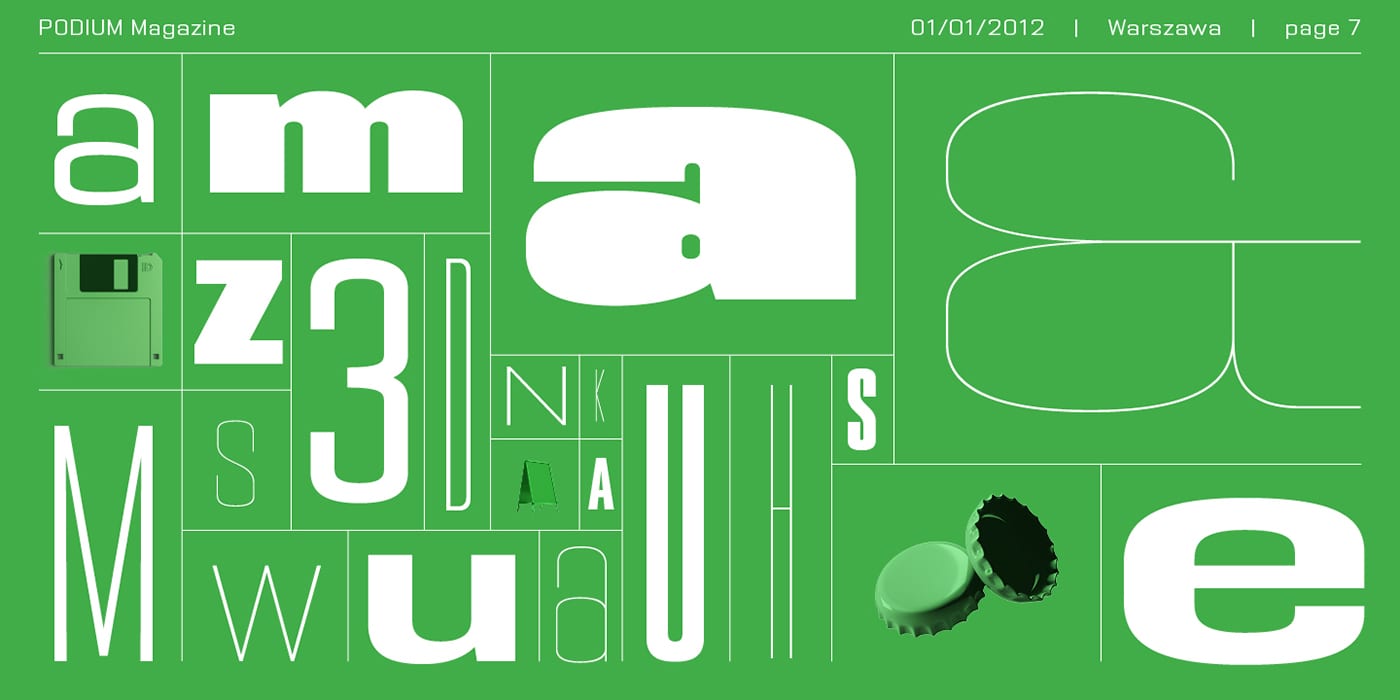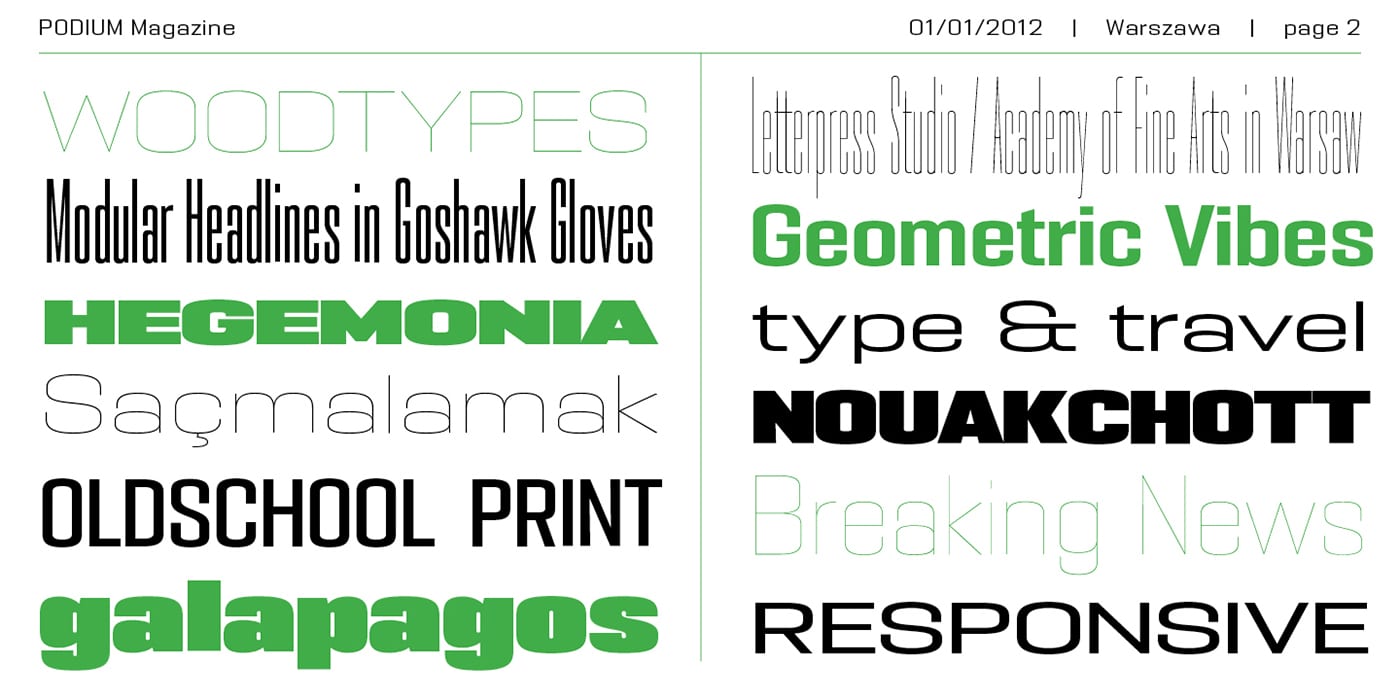
Podium Sharp Font
Podium Sharp Font - A sans serif typeface with 2 styles, available from adobe. Podium sharp is extended version of dudu typeface designed in 2012. Podium sharp sans serif font. Explore podium sharp variable designed by mateusz machalski at adobe fonts. After many years i’ve decided to rebuild and develop this typeface by. This is a modern sans serif font family with a geometric touch.
This is a modern sans serif font family with a geometric touch. Explore podium sharp variable designed by mateusz machalski at adobe fonts. Podium sharp is extended version of dudu typeface designed in 2012. Podium sharp sans serif font. A sans serif typeface with 2 styles, available from adobe. After many years i’ve decided to rebuild and develop this typeface by.
Podium sharp is extended version of dudu typeface designed in 2012. Explore podium sharp variable designed by mateusz machalski at adobe fonts. After many years i’ve decided to rebuild and develop this typeface by. A sans serif typeface with 2 styles, available from adobe. Podium sharp sans serif font. This is a modern sans serif font family with a geometric touch.
PODIUM Sharp Font Fontspring
Explore podium sharp variable designed by mateusz machalski at adobe fonts. This is a modern sans serif font family with a geometric touch. A sans serif typeface with 2 styles, available from adobe. Podium sharp is extended version of dudu typeface designed in 2012. After many years i’ve decided to rebuild and develop this typeface by.
Podium sharp is extended version of dudu typeface designed in 2012. After many years i’ve decided to rebuild and develop this typeface by. Explore podium sharp variable designed by mateusz machalski at adobe fonts. A sans serif typeface with 2 styles, available from adobe. This is a modern sans serif font family with a geometric touch.
PODIUM Sharp Font Family UpFonts
Podium sharp is extended version of dudu typeface designed in 2012. A sans serif typeface with 2 styles, available from adobe. Explore podium sharp variable designed by mateusz machalski at adobe fonts. After many years i’ve decided to rebuild and develop this typeface by. This is a modern sans serif font family with a geometric touch.
PODIUM Sharp Font
A sans serif typeface with 2 styles, available from adobe. Podium sharp is extended version of dudu typeface designed in 2012. This is a modern sans serif font family with a geometric touch. After many years i’ve decided to rebuild and develop this typeface by. Podium sharp sans serif font.
PODIUM Sharp Font Family UpFonts
Podium sharp is extended version of dudu typeface designed in 2012. After many years i’ve decided to rebuild and develop this typeface by. This is a modern sans serif font family with a geometric touch. Podium sharp sans serif font. Explore podium sharp variable designed by mateusz machalski at adobe fonts.
PODIUM Sharp Font FontPath
This is a modern sans serif font family with a geometric touch. Explore podium sharp variable designed by mateusz machalski at adobe fonts. Podium sharp sans serif font. After many years i’ve decided to rebuild and develop this typeface by. Podium sharp is extended version of dudu typeface designed in 2012.
PODIUM_Sharp Behance
Explore podium sharp variable designed by mateusz machalski at adobe fonts. Podium sharp sans serif font. This is a modern sans serif font family with a geometric touch. After many years i’ve decided to rebuild and develop this typeface by. Podium sharp is extended version of dudu typeface designed in 2012.
PODIUM Soft Font Webfont & Desktop MyFonts Typeface design, Free
Podium sharp sans serif font. This is a modern sans serif font family with a geometric touch. Podium sharp is extended version of dudu typeface designed in 2012. After many years i’ve decided to rebuild and develop this typeface by. A sans serif typeface with 2 styles, available from adobe.
PODIUM Sharp Font
Podium sharp is extended version of dudu typeface designed in 2012. A sans serif typeface with 2 styles, available from adobe. After many years i’ve decided to rebuild and develop this typeface by. Podium sharp sans serif font. This is a modern sans serif font family with a geometric touch.
PODIUM Sharp Font Family UpFonts
Podium sharp sans serif font. After many years i’ve decided to rebuild and develop this typeface by. This is a modern sans serif font family with a geometric touch. Podium sharp is extended version of dudu typeface designed in 2012. Explore podium sharp variable designed by mateusz machalski at adobe fonts.
Podium Sharp Sans Serif Font.
Podium sharp is extended version of dudu typeface designed in 2012. Explore podium sharp variable designed by mateusz machalski at adobe fonts. This is a modern sans serif font family with a geometric touch. After many years i’ve decided to rebuild and develop this typeface by.